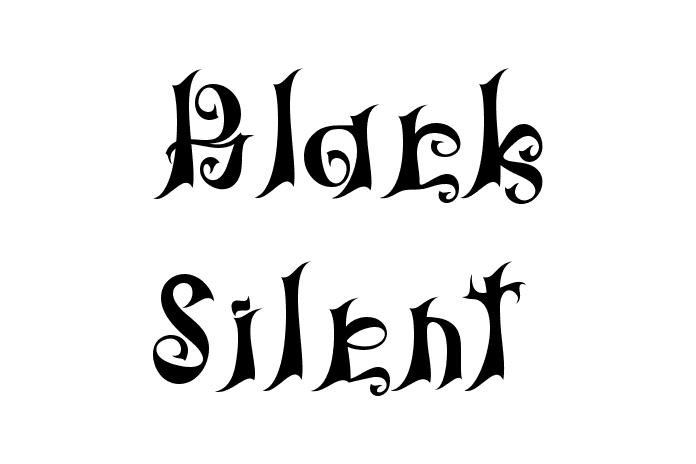
Hanry Potter Demo
Hanry Potter font is an amazing Gothic typeface designed by Widiyanti & Sarah Suci P of Edric Studio.
Font designer Widiyanti & Sarah Suci P
Typeface classification Gothic,Horror